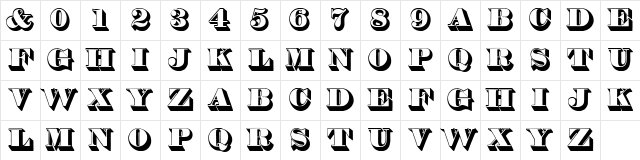
Thorne Shaded Regular Free Font
Thorne Shaded Regular
Designer: Dieter Steffmann
Design Context for Thorne Shaded
Thorne Shaded is a composed and adaptable typeface that performs quietly and consistently across a wide range of design contexts.